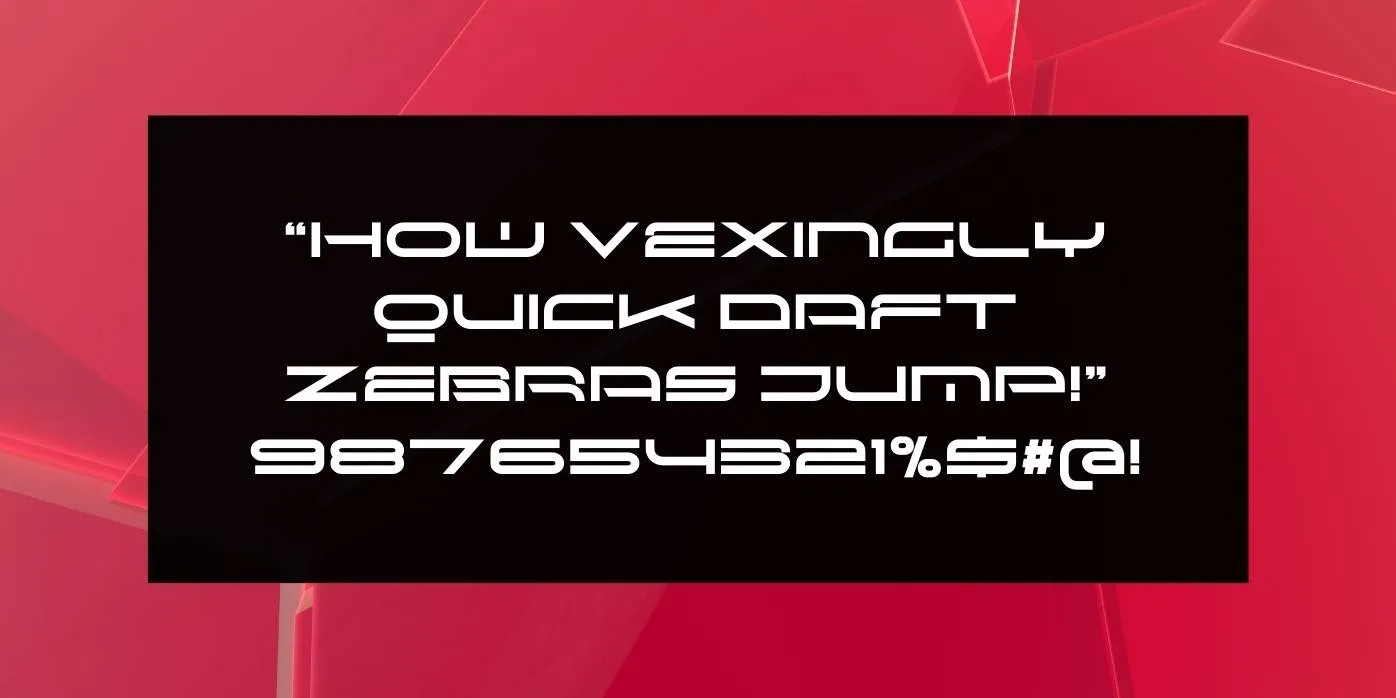
Red Seven Font
Red Seven Font is a futuristic display typeface that is designed by Dennis Ludlow, That font family has stylish-looking, edgy characters, This typeface has three styles and has been published by Sharkshock. That was the best-used typeface for the logos, titles, etc. If you are looking for a type of typeface that can display your design and look outstanding design, that font style is amazing to use as a display font in your banner design. This Outline and Italic version of that typeface are not available freely, You must purchase it from the author.
The Red Seven Font style is an inspirational, fantastic display font that is used for titles and logos. Especially they feature matches with the design like gaming cars, movies, sports teams, etc. Is Red Seven Font is free font? Outline & italic versions of that typeface will purchase for commercial use.
Yes, Red Seven font is a Futuristic display typeface that is best for designing, Banner Designing, Logos, etc.